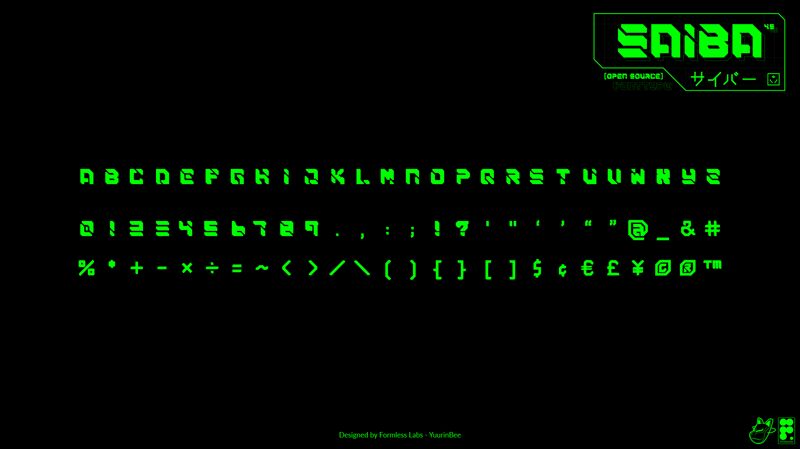
SAIBA-45 Outline
SAIBA-45 Outline font is a bold, expanded display typeface designed by Yuurin Bee. It draws inspiration from CyberPunk, NeoTokyo, Mecha, Manga/Anime, Retro, Tech, and Futuristic styles. With its unique angular and geometric design featuring prominent 45-degree edges, this font embodies a tech-inspired digital aesthetic that lends itself to modern visual projects.
This free display font is ideal for creating distinct logotypes, stylized names and text, unique vector characters, and bold titles. It's perfect for short-form and large-format displays such as posters or billboards. Use it in gaming graphics, book covers, magazine layouts, album art designs or any project needing a futuristic edge.